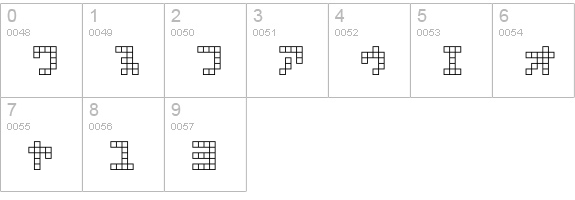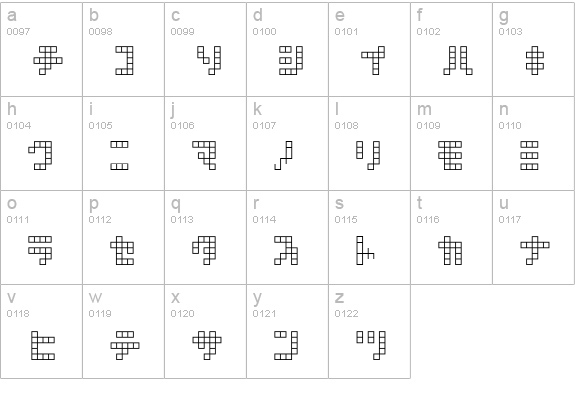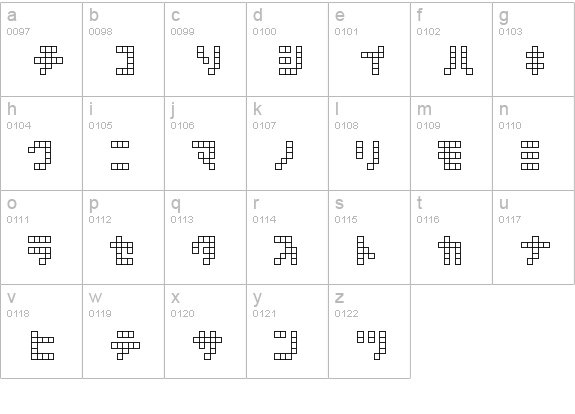
square type kana kana Font Details
The square type kana kana font is a beautifully designed font that is perfect for adding a modern and unique touch to your projects. With its bold and angular characters, this font will make a statement and grab the attention of your audience. It is versatile and can be used in various creative projects such as logos, posters, titles, and more. What sets this font apart is that it is not only visually appealing but also freely available to download at FontsMarket.com. This means that you can use it in any personal or commercial project without having to worry about any licensing restrictions. The convenience of having a high-quality font that is free makes it a go-to choice for designers and creatives alike. The square type kana kana font is easy to read and works well in both small and large sizes. Whether you're using it for headlines or body text, it will maintain its legibility and clarity. Its clean lines and sharp edges give it a modern and futuristic look, making it suitable for projects that require a contemporary and cutting-edge aesthetic. Downloading this font from FontsMarket.com is a breeze. Simply visit the website, search for the square type kana kana font, and click on the download button. You'll have access to the font files in no time, allowing you to start incorporating this stylish font into your designs immediately. Overall, the square type kana kana font is a versatile and visually appealing font that is freely available to download at FontsMarket.com. With its bold and angular characters, it will add a modern and unique touch to your projects, making it a must-have for any designer or creative individual.